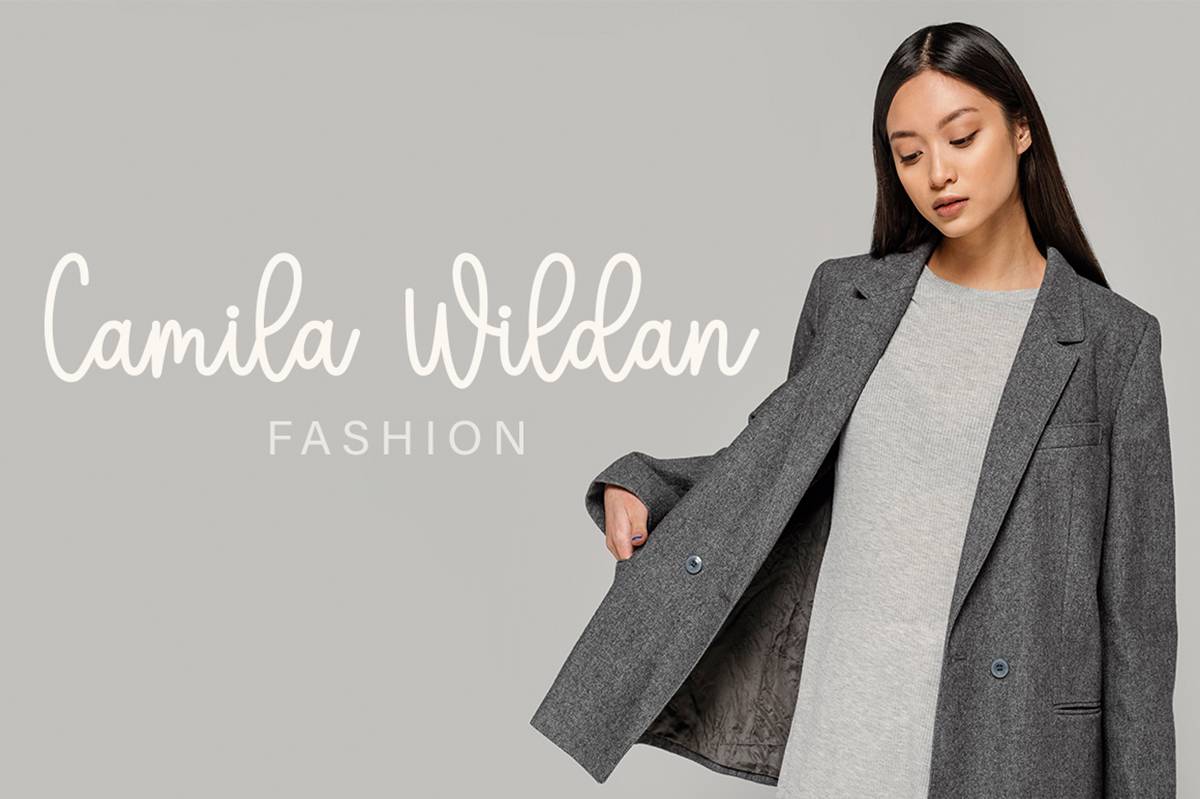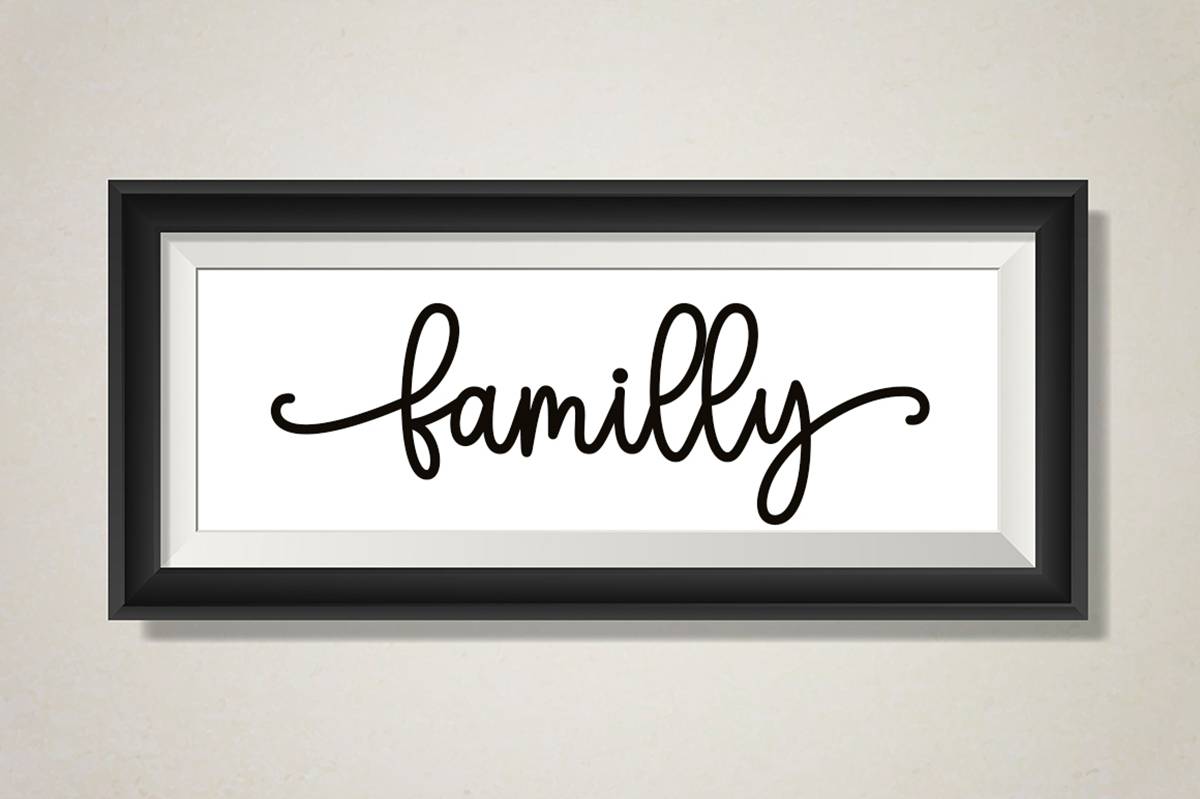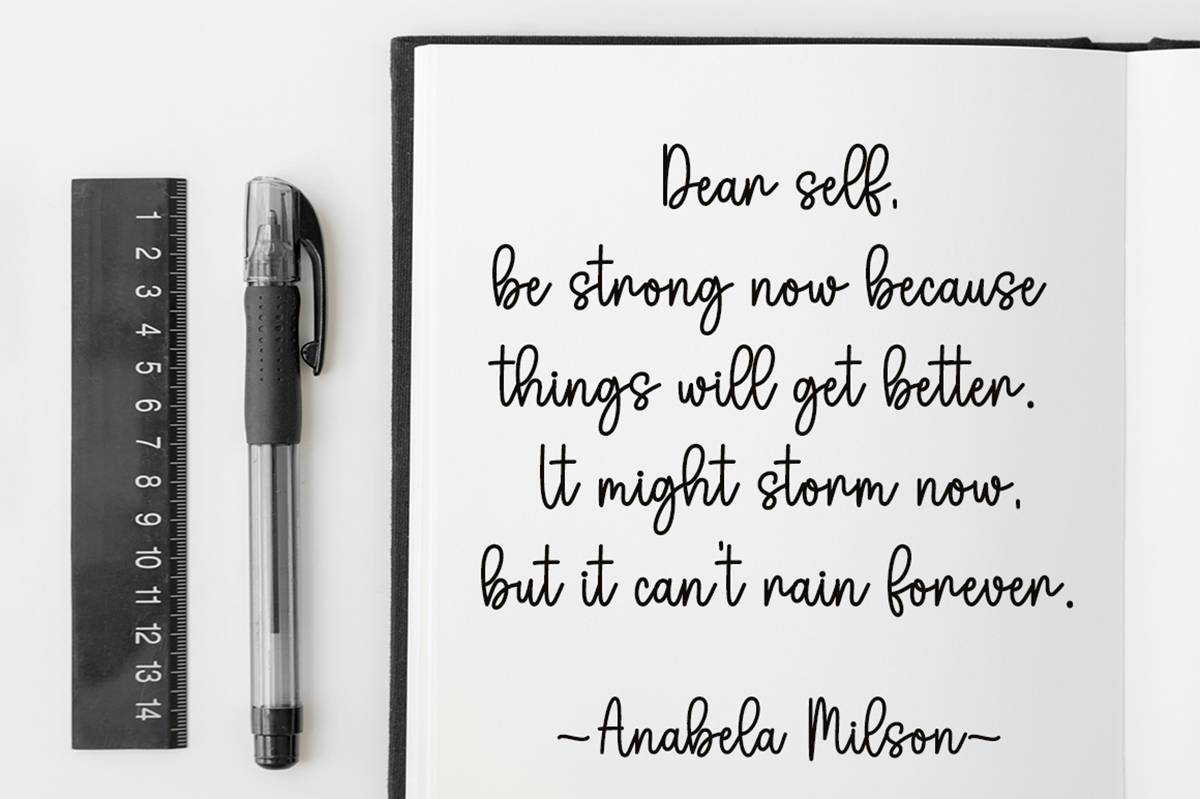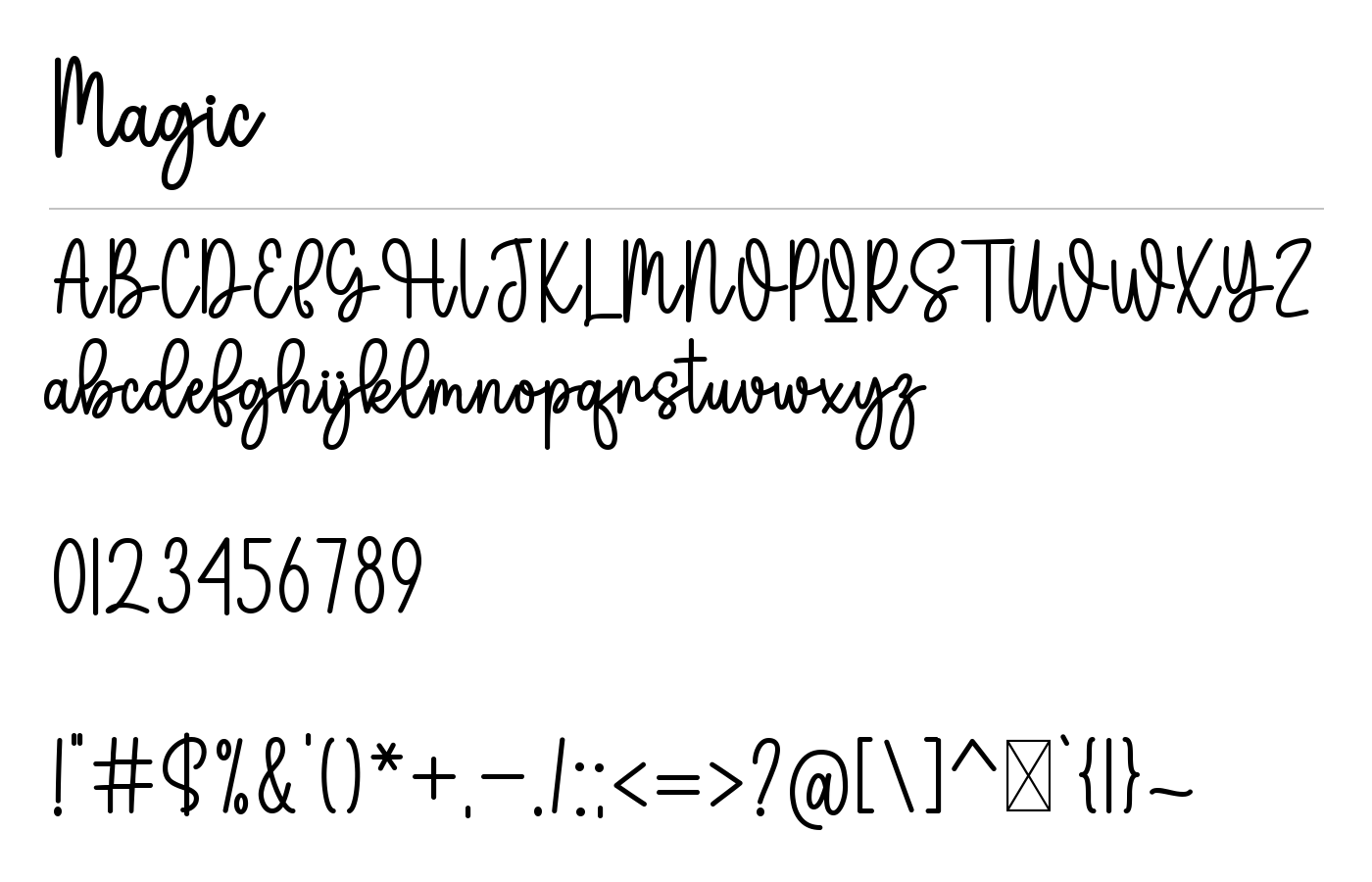
Popcorn Magic is a playful and friendly handwritten script font with a light and airy feel. Its tall, narrow letterforms and smooth, casual strokes give it an inviting personality perfect for creative, casual branding, invitations, and fun headlines. This font works well where a personal and approachable touch is desired, making it ideal for lifestyle blogs, children’s products, or informal packaging designs.
Popcorn Magic Font